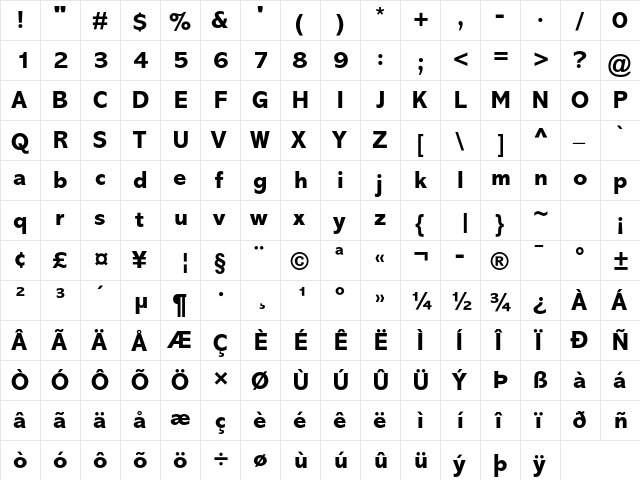
Abadi MT Std Extra Bold Font Preview
Abadi MT Std Extra Bold
Abadi MT Std Extra Bold Font Details
| Style | Extra Bold |
| Foundry | Agfa Monotype Corporation |
Design Context for Abadi MT Std Typeface
Abadi MT Std is a composed and adaptable typeface that performs quietly and consistently across a wide range of design contexts. The heavy weight commands attention and anchors typographic hierarchies.